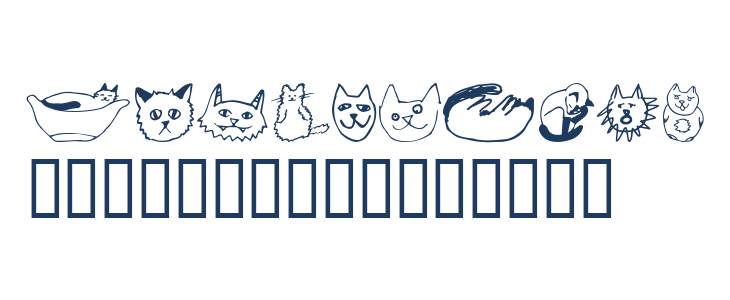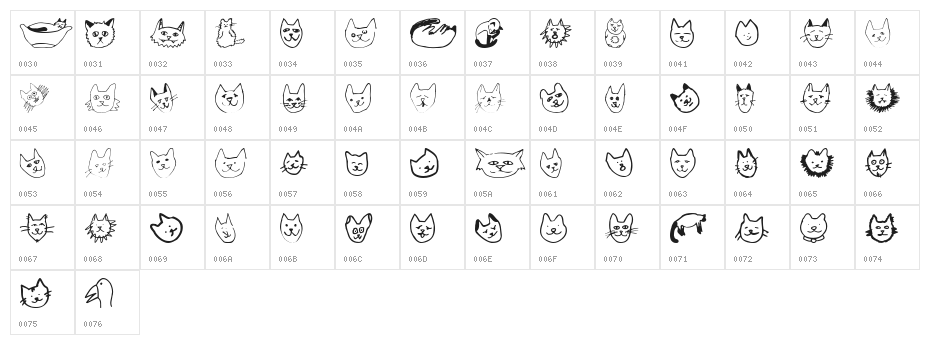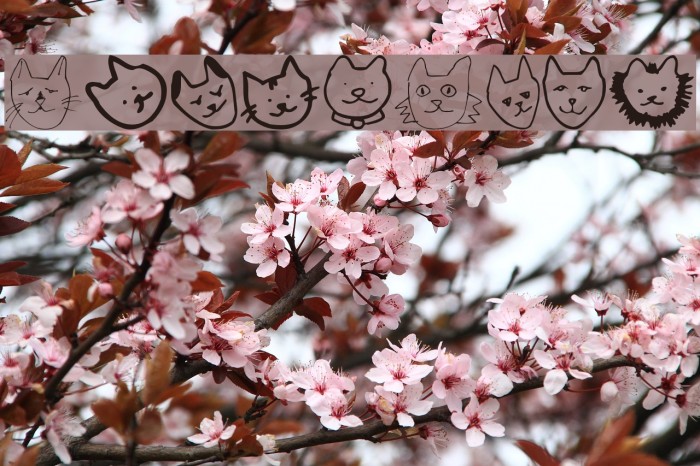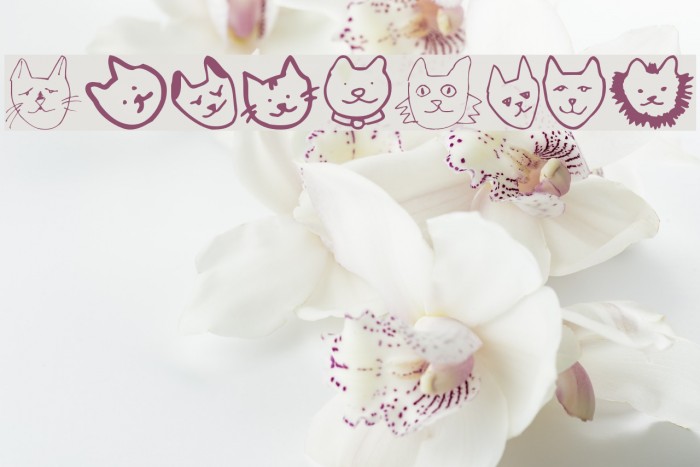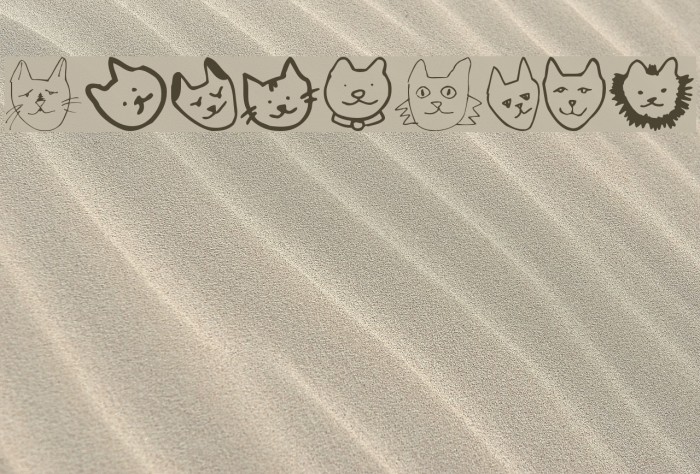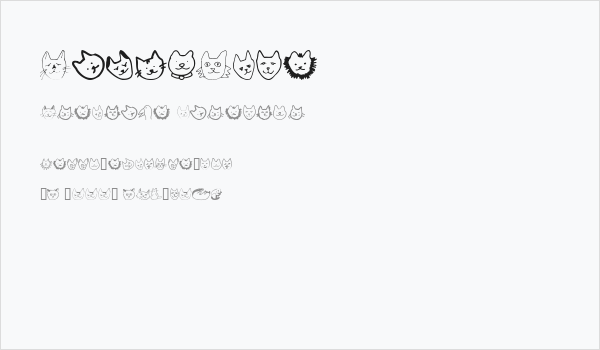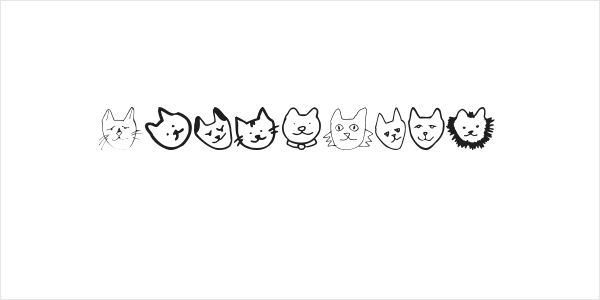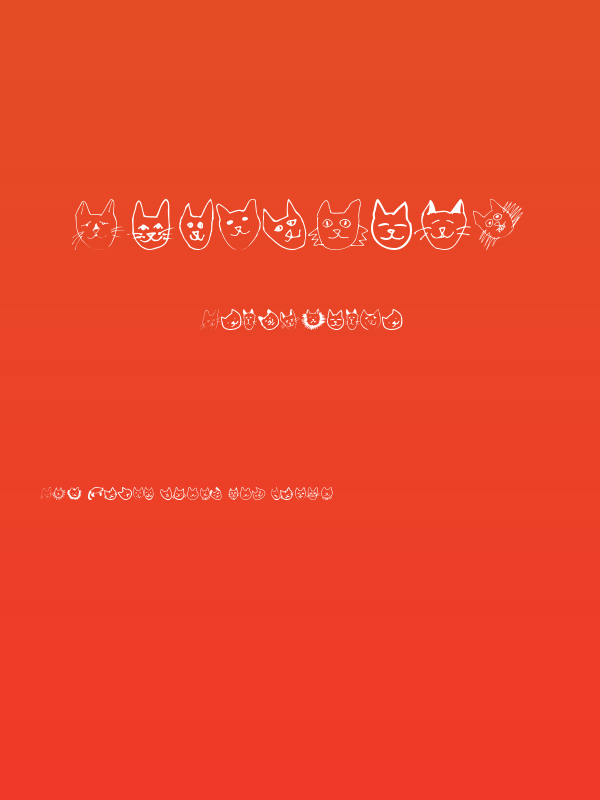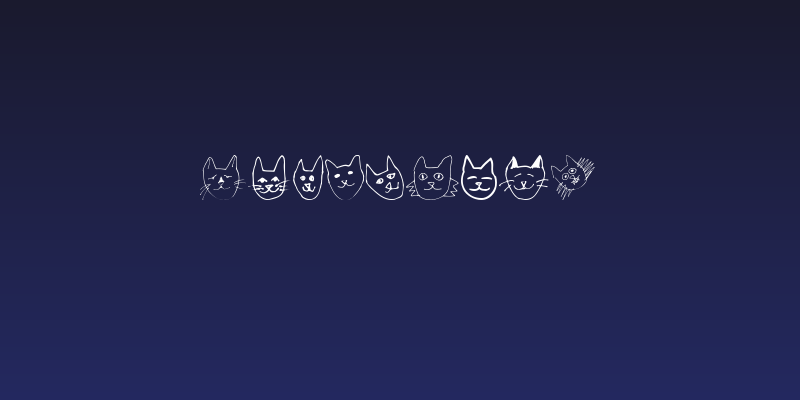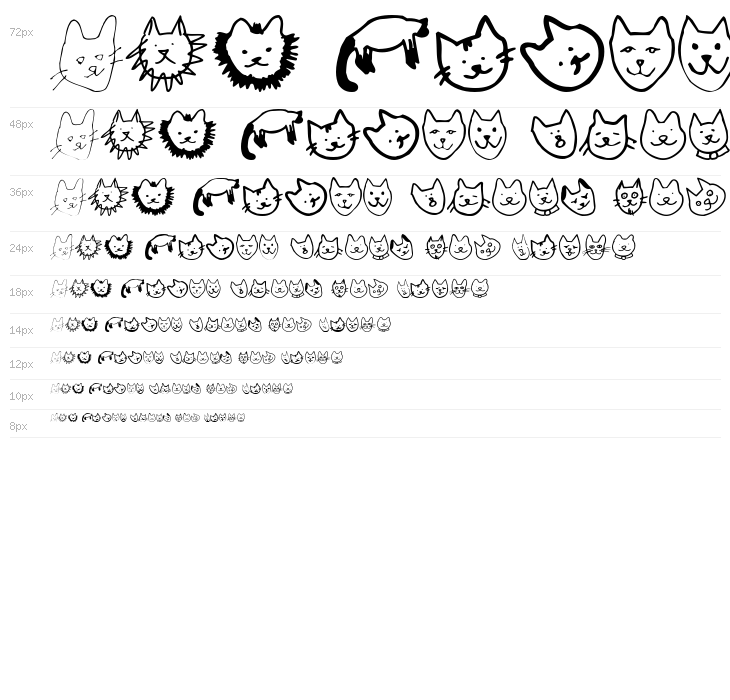
LinusFace Font
LinusFace Description
This is a whimsical and playful decorative font featuring a variety of cat faces, each with unique expressions and styles. The characters are hand-drawn, giving them a charming and informal appearance. The font includes a wide range of cat illustrations, from simple line drawings to more detailed and expressive faces. Each character is distinct, adding a sense of fun and creativity to any project. The font is ideal for projects that require a lighthearted and humorous touch, such as children's books, greeting cards, or playful branding.
| Overall Style | Whimsical |
| Use Case | Decorative elements, playful designs. |
| Proposed Projects | Children's books, greeting cards, playful branding, pet-related products. |